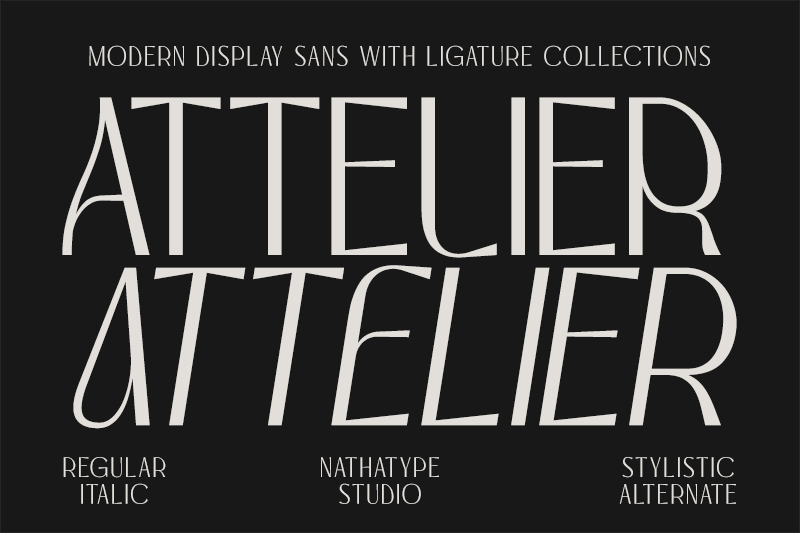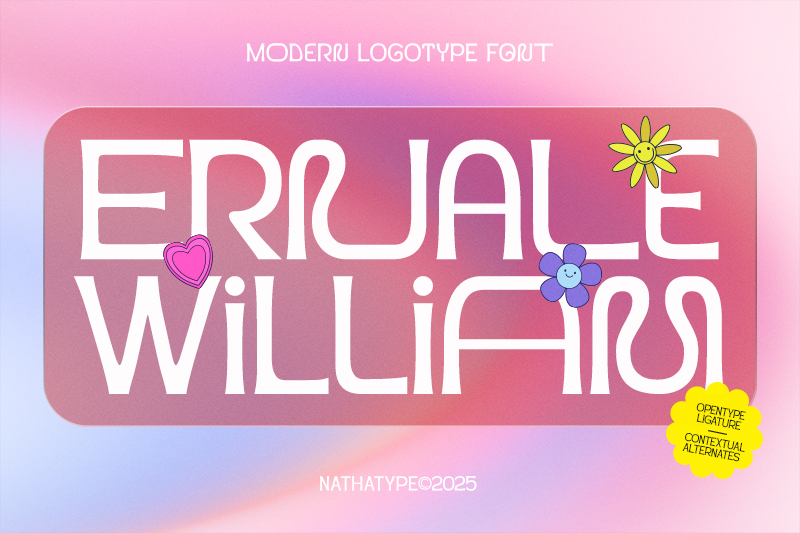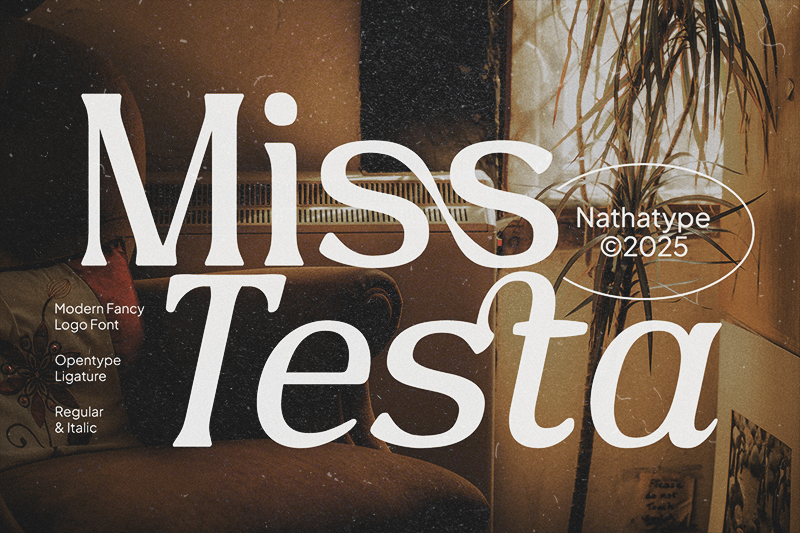
The existence of typography in graphic design is crucial. It affects the clarity of the message and the visual appeal. The proper selection of font adds a distinct touch to a design, simultaneously strengthening its overall character. In this case, using a modern display font presents clean, geometric, and minimalist nuance in any designs. However, some of these fonts tend to be experimental, strongly highlighting the visual identity of a design.
A modern display font is often used as the focal point of a design, such as logos, posters, packaging, and digital branding needs. The letter characters are expressive and distinctive, allowing designers to create a more distinctive visual. Aside from that, using the right modern display font in your design improves the visual message and effectively communicates the design concept to the audience.
This article offers 13 modern display font options that are suitable for both minimalist and expressive designs, providing designers with a comprehensive reference for determining typography tailored to visual needs and matched with design communication purposes.
Ernale William presents a modern display character that stands out due to its unique and experimental letterform. The structural letter features a psychedelic shape or a flowing and flexible liquid style, resulting in an expressive visual impression. This font’s unique feature is its ligature management, which seamlessly joins some characters, resulting in a very dynamic visual fluidity. As a result, this modern display font works well for logotypes, headlines, and visually appealing designs.
Attelier presents a modern visual style with a display approach that feels expressive and appealing. The letter structure of Attelier gives a sophisticated and classy character often associated with high-end fashion brands, lifestyle magazines, and luxurious cosmetic industries. This modern display font’s distinctiveness lies in its ligature variations and stylistic alternates that give flexibility in a letter composition. The existence of the italic style also strengthens the dynamic nuance, making this modern display font effective in using branding, logotypes, and headlines.
In Vellmarie, the design represents a modern display character with an elegant and classy touch. The letter proportion is designed by combining line contrast and smooth serif details. Vellmarie is a modern display font that has beautiful ligatures connecting letters and italic variants that add a lively movement impression. With those characters, Vellmarie is perfect for visual needs, like branding, headlines, and design composition that prioritizes elegance.
In an artwork, typography has a strategic role in presenting a classy look. Take the Miss Testa font, for example; this font shows the character of a modern display font with a smooth serif nuance. The letterform highlights the dynamic contrast of the flowing curves and some asymmetric letters, making the visual impression appear more graceful and fluid. Moreover, this font features ligatures that connect letters with smooth and consistent curves. With those characteristics, Miss Testa is perfectly suited for branding needs, main titles, or visual designs that emphasize an elegant impression.
Designed with a minimalist, modern approach that puts emphasis on the aspects of aesthetics and visual appeal, Musero is one of the best modern display font choices for you. Its letterform conveys a clean sans-serif style with thin lines and precise geometrical structures. As a result, Musero looks incredibly light and modern. Its balanced letter proportion and rounded corner details make this font look comfortable to read. Besides that, it has variable font support, making it flexible to manage the style tailored to the visual needs. Musero is perfect for many uses, including headlines, branding, and other minimalist, elegant visual designs.
The character of this font shows the identity of a modern display with an expressive brush touch. It presents a stroke texture that doesn’t feel fully neat, as the corners are a bit rough, creating a dynamic and artistic impression. Additionally, the bold letter proportions keep the Biloner appearance strong and easily readable at large sizes, making it suitable for posters and visual designs that convey a creative and energetic impression.
This font offers a modern display concept that explores unconventional letterforms. The letterform is dominated by a very thick and solid structure with widened proportions, resulting in a strong, heavy appearance that immediately catches the eye. It has a unique solid block impression with slight distortions on some characters that provide a playful vibe. This modern display font is effective for use in headlines, promotional posters, and designs that require a bold and striking appearance.
Mitters shows a modern display character through its simple letterform that is visually appealing. The characters are built with smooth rounded shapes that are consistent and each curve that is precise, resulting in a soft visual rhythm. The uniqueness of this modern display font lies in its simple form and strong appeal when used in large sizes. Overall, this font is perfect for branding, headlines, or visual designs that prioritize a modern, light, and approachable impression.
Overall, these modern display font lists demonstrate a wide range of visual characters that can convey a strong personality in a design. From solid shapes to expressive and decorative impressions, each of these fonts takes a unique approach to developing a visual appeal while also effectively enhancing the design message.
Now it’s time for you to explore and choose the font that best suits your design needs. Take advantage of the character and uniqueness of each font to create works that are bolder, more interesting, and memorable.